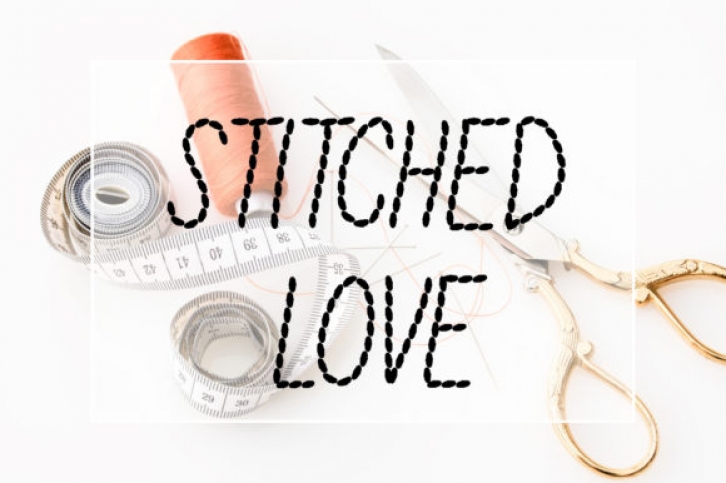
Stitched Love is a simple, cute and original display font. It is suitable for creating any branding, product packaging, invitation, quote, t-shirt, label, poster, logo that you wish to develop.